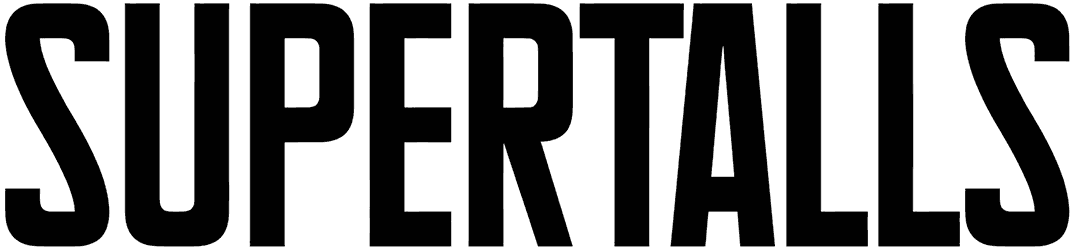
Supertalls Font
Supertalls is a majestic sans serif font that comes with clean shapes and accurate curves, thus while the audience’s eyes go up and downs following its magical flow, they will definitely fall in love with your artwork such as movie posters, magazines, stationaries, branding projects, and book covers.
Aside from carrying a sense of professionalism, drama, dynamic, and jauntiness, the brilliant point about this all-caps font is that it offers two distinctive styles.
Designed by: Hawtpixel